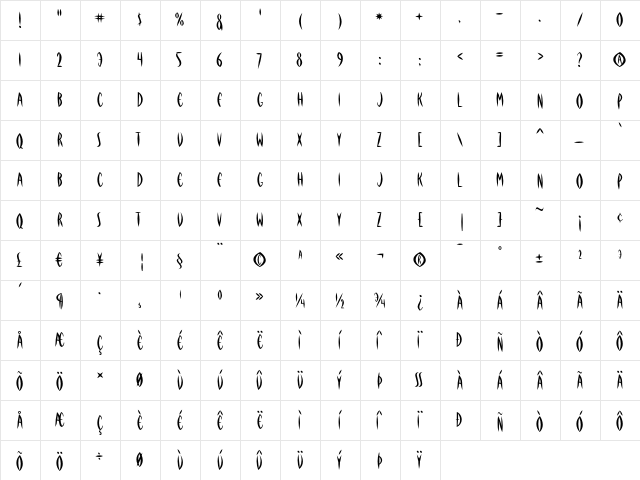
Etiquette Regular
Design Context for Etiquette Typeface
Etiquette is a composed and adaptable typeface that performs quietly and consistently across a wide range of design contexts.